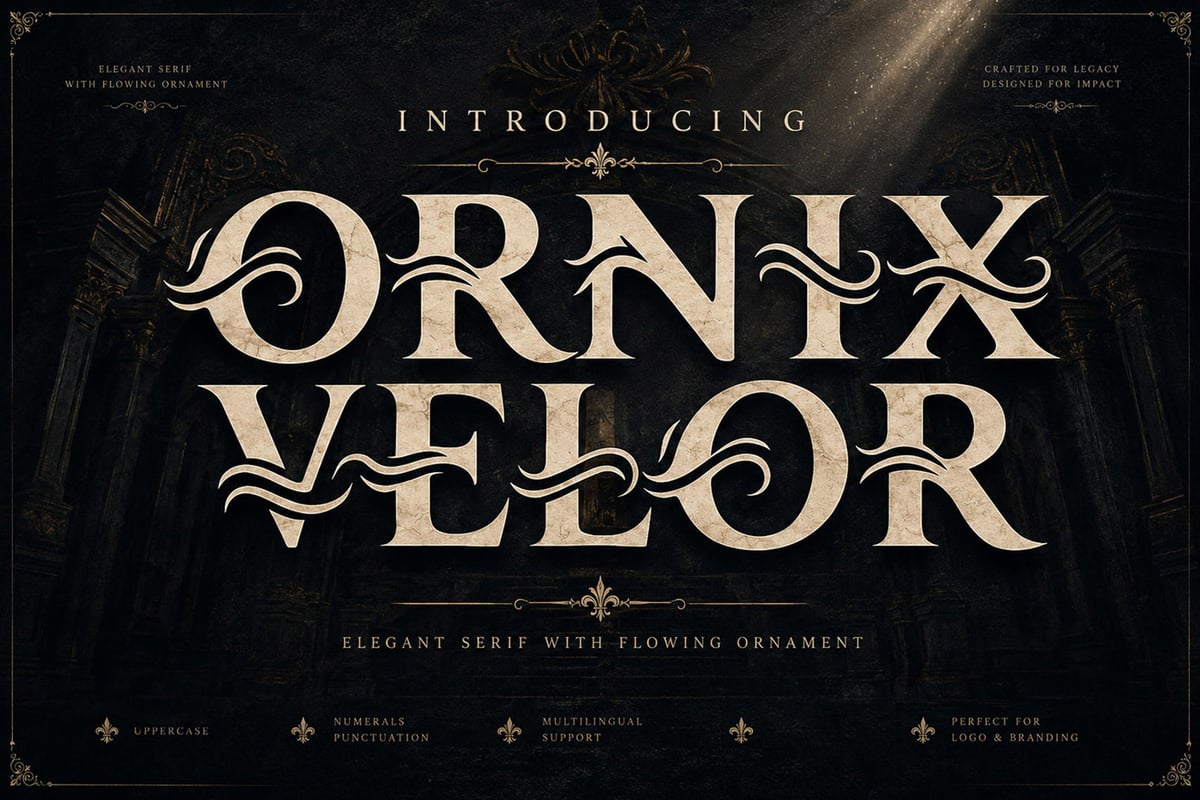
Ornix Velor
Ornix Velor is a luxury elegant serif display font crafted to deliver timeless sophistication and refined visual impact. Inspired by classical European typography, luxury editorial design, and ornamental lettering, this typeface combines strong serif construction with graceful flowing ornaments that create a dramatic yet elegant appearance. Every character is carefully designed with balanced proportions and decorative flowing swashes that naturally extend from selected letterforms. These orname